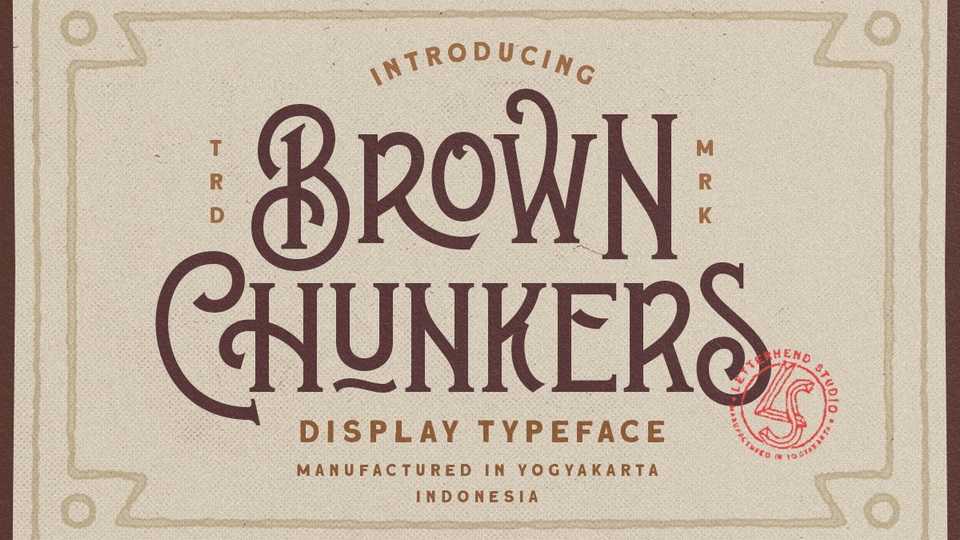
Download Brown Chunkers font, a unique display typeface with a vintage style, carefully handcrafted to become a true favorite. Clean and a little bit quirky, Brown Chunkers is the perfect fit for all of your logos, branding, social media, and crafty DIY projects.